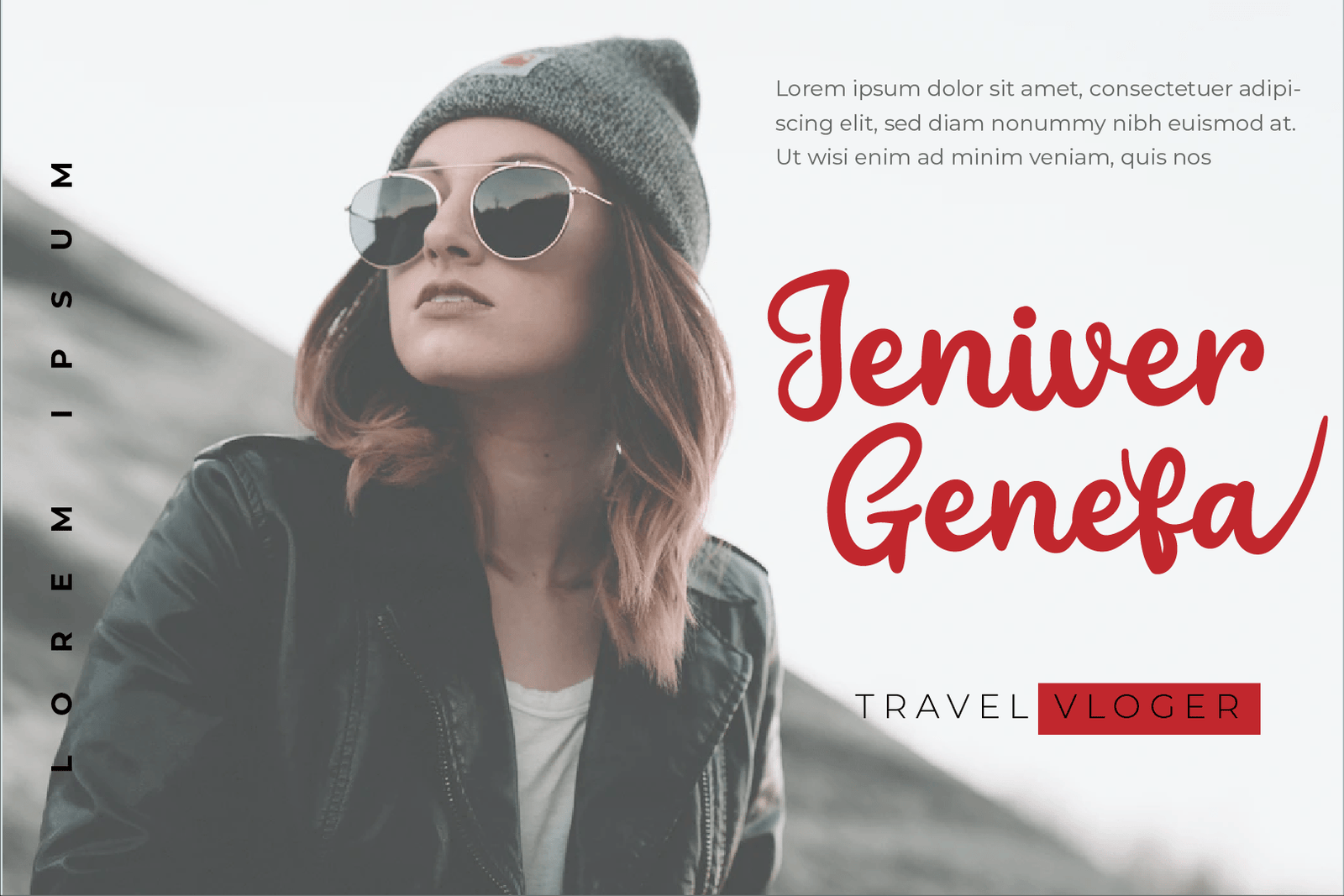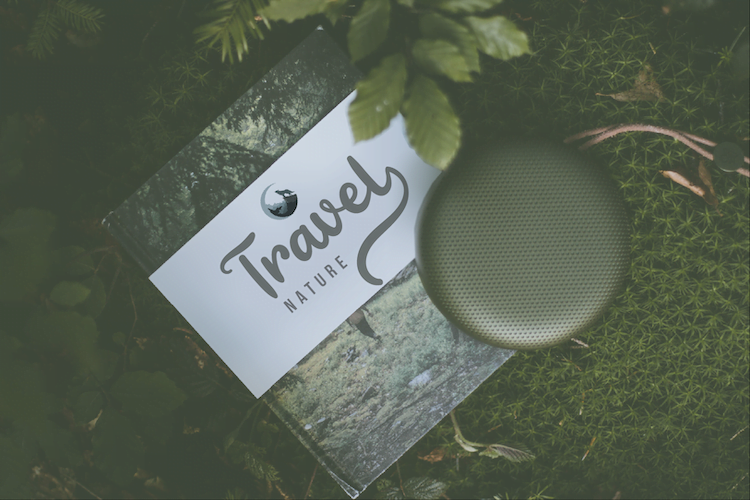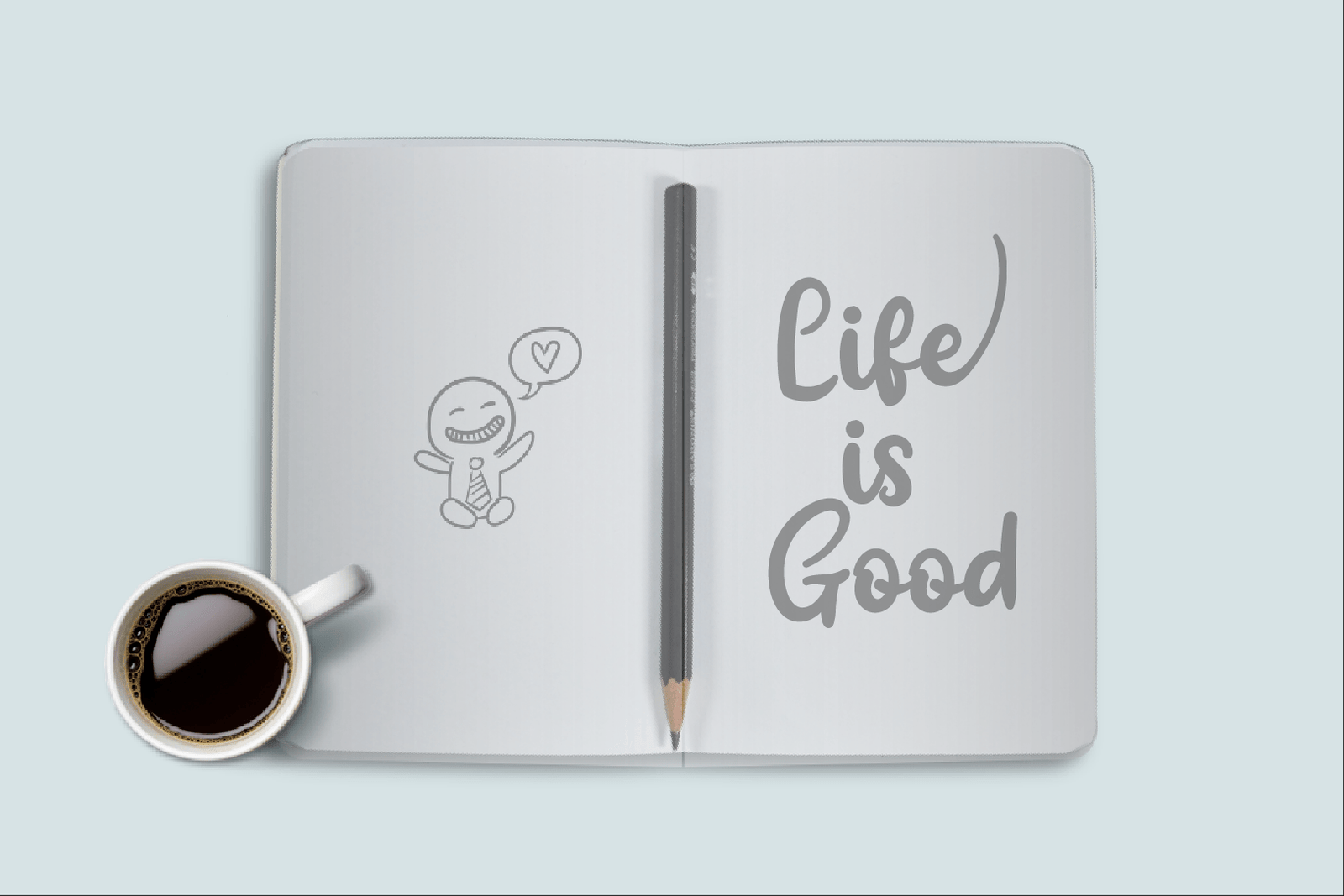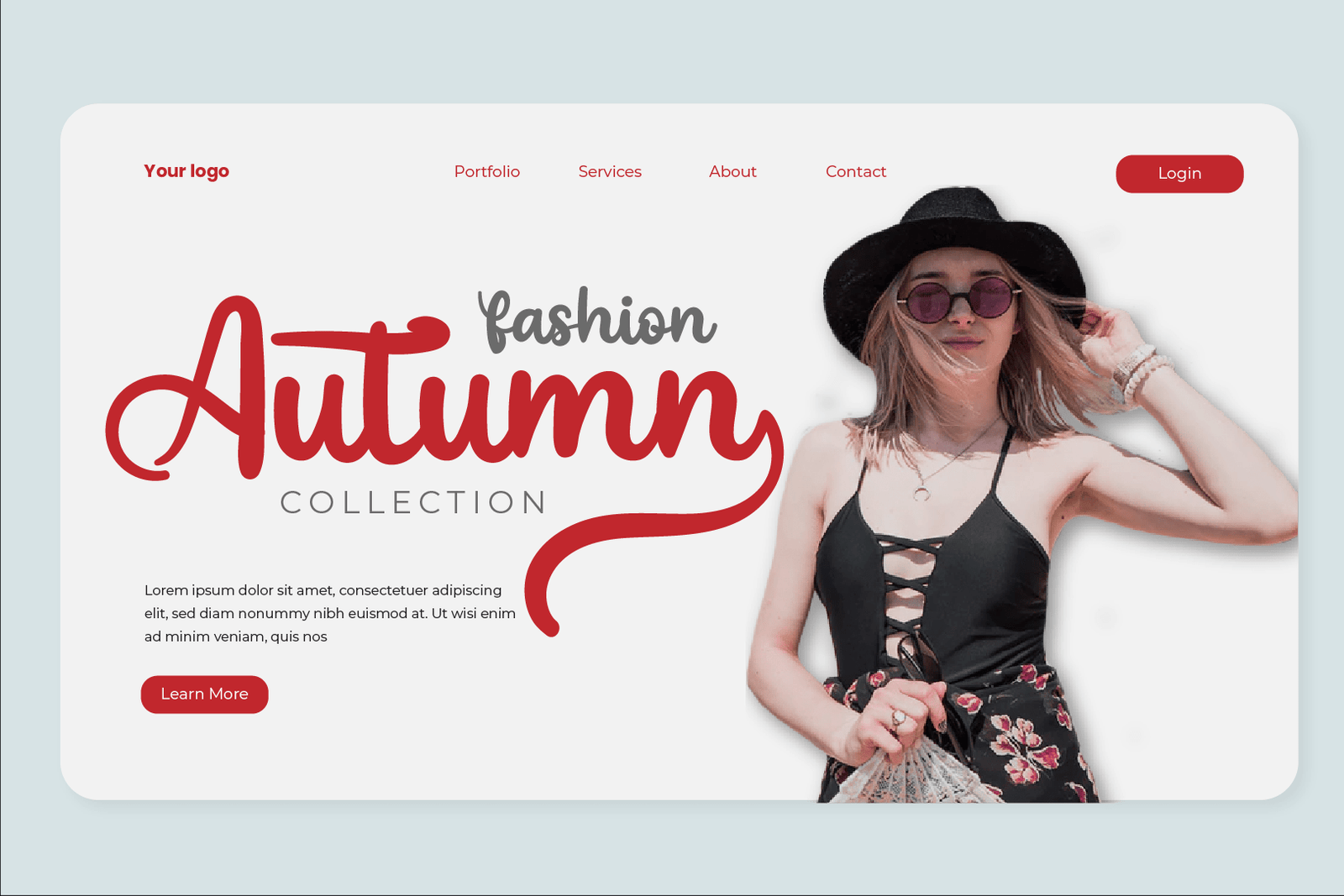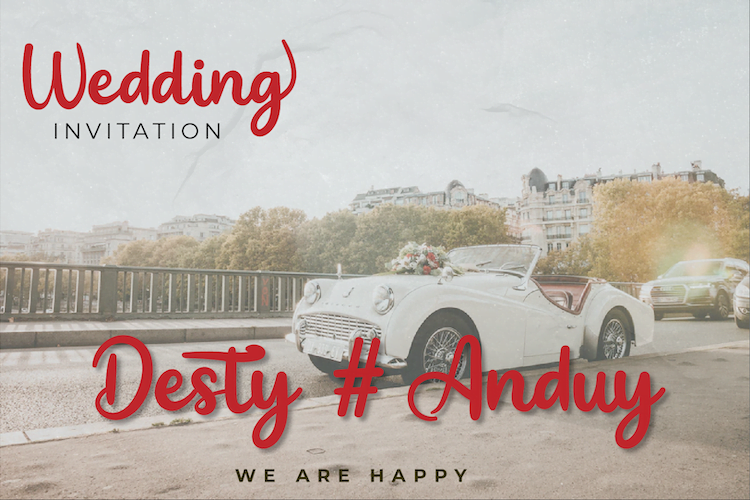
The Penyet
Introducing our newest Font, The Penyet
This font offers beautiful abstract typographic harmony for a wide variety of design projects, including natural handwriting in digital form for designs, quote designs, for social media business designs, advertisements, trademarks, promotional banners, posts, posters, signatures, and all. the design requires handwriting or whatever design you want.
This charming font also offers the beauty of abstract typography harmony for a wide variety of design projects, including digital natural handwriting for designs, quote designs, for social media business designs, advertisements, trademarks, food and beverage promotion banners, text, posters, a signature, and all designs require handwriting or whatever design you want.